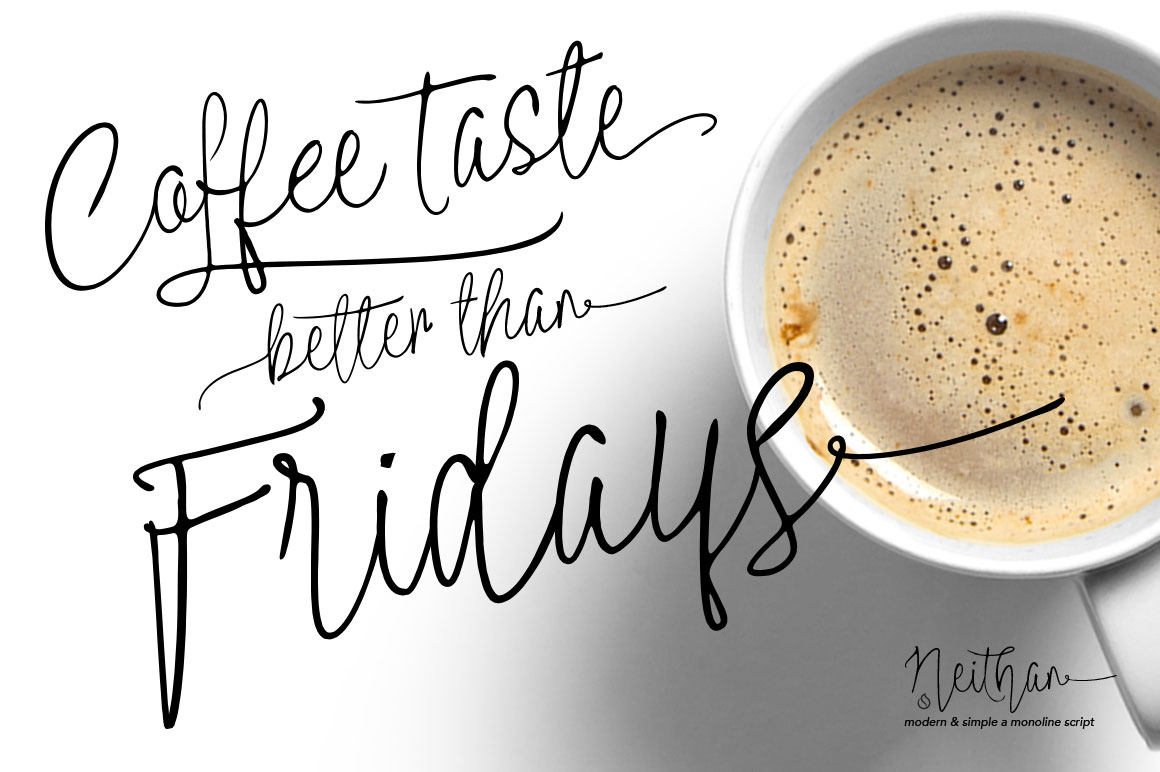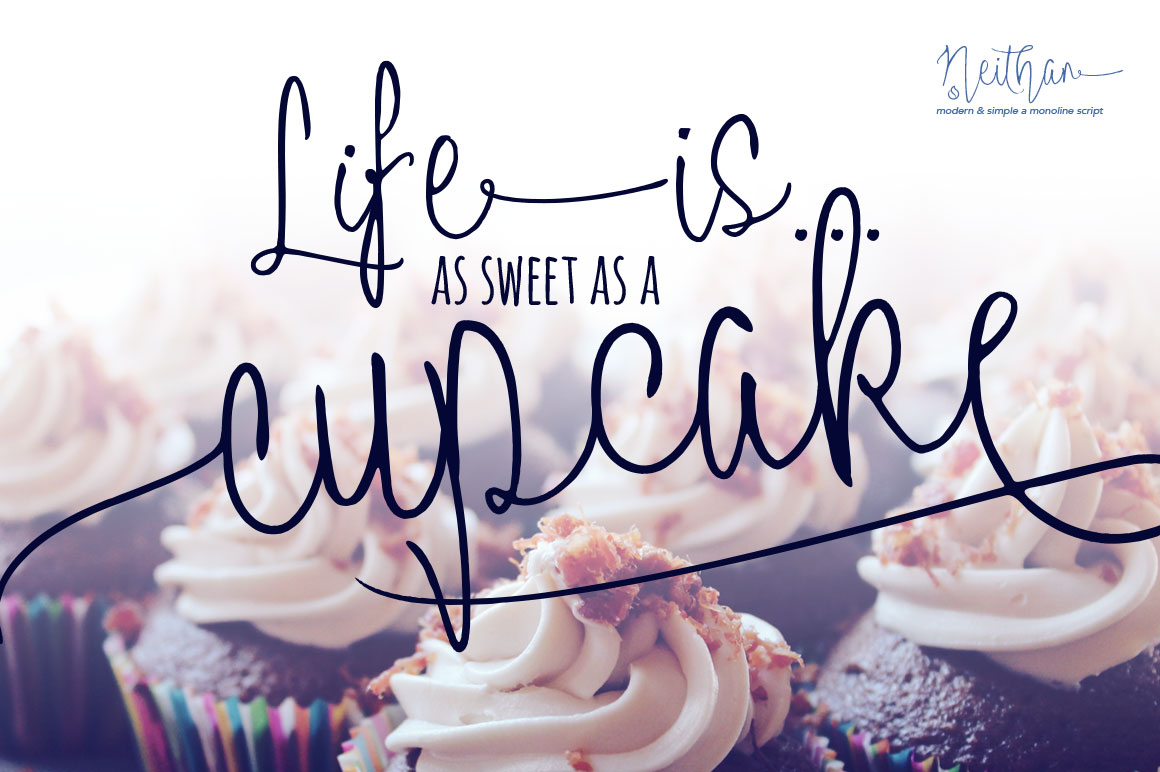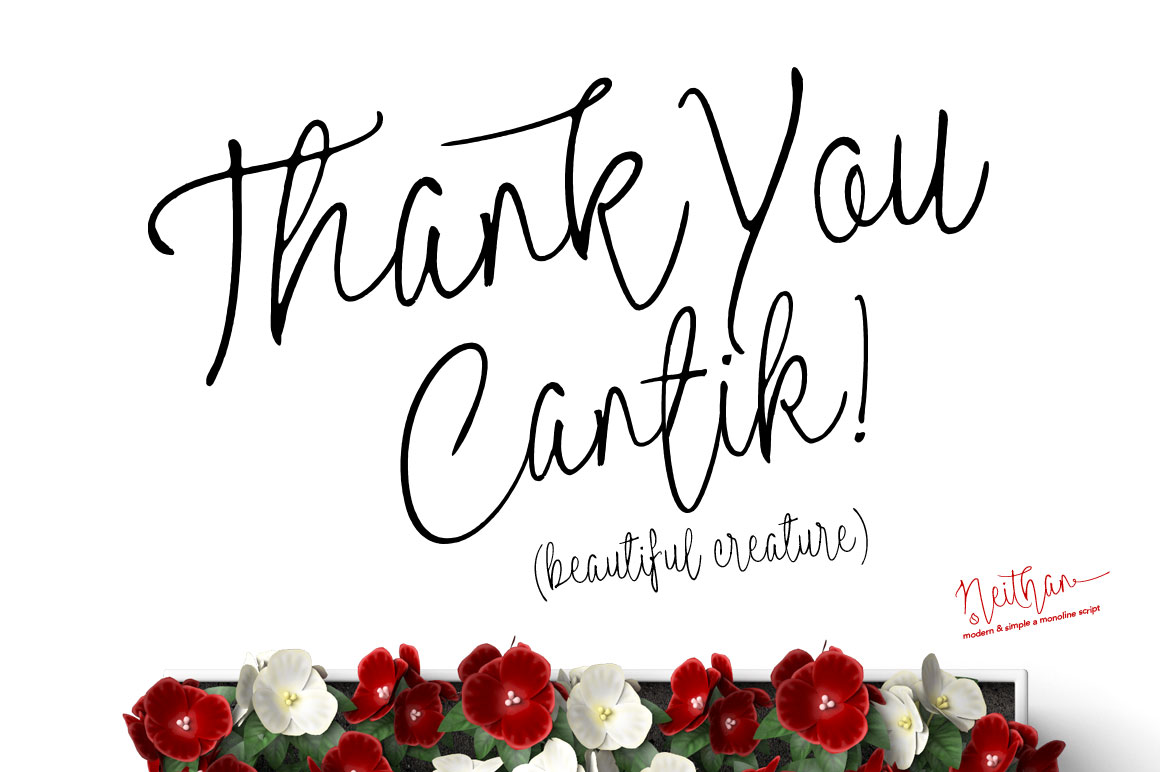
Neithan-Monoline Script – Free Demo
Neithan is a monoline script with modern style, light and minimalist. Made with spontaneous and candid flow by conscience. Neithan present to complete the design and your dreams to inspire us all. Very suitable for logos, quotes, t-shirt design, poster, blogs header, cards, or anything you want.